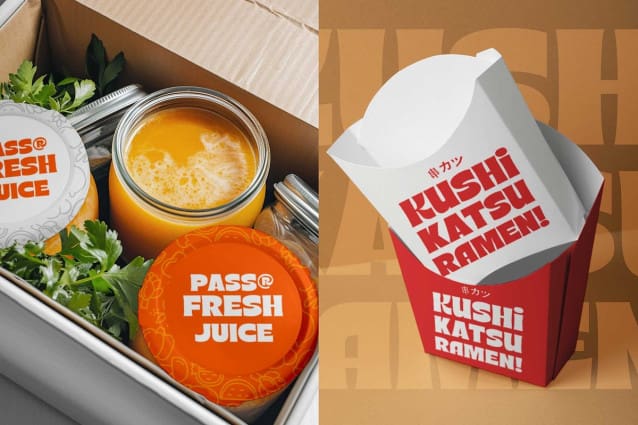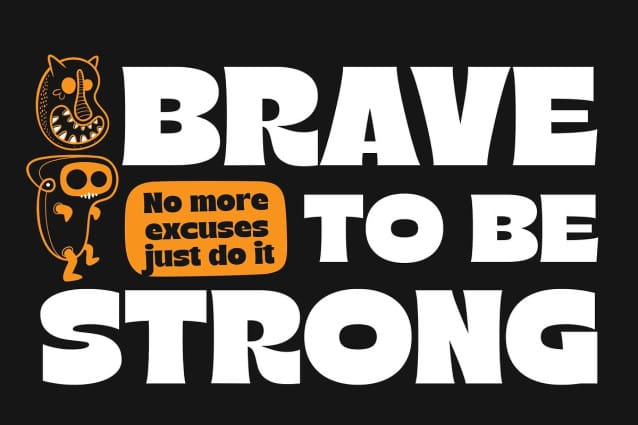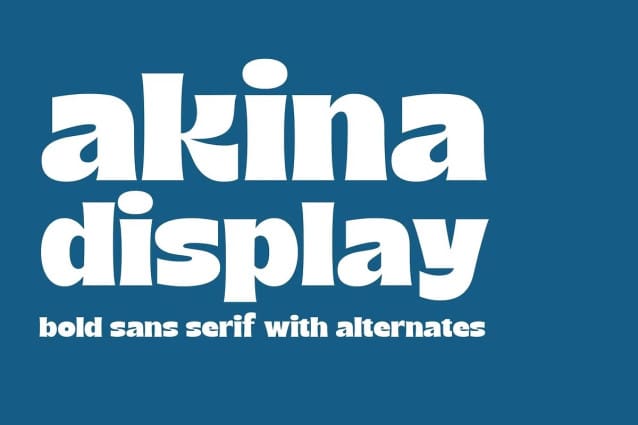
Akina Display Font
Akina Display Font, a bold serif font inspired by the charm of vintage-pop art. Its thick, playful curves and subtle beak endings create a relaxed yet fun vibe, bringing energy and warmth to your designs.
Perfect for projects that thrive on contrast, Akina shines in logos, headlines, branding, motion graphics, packaging, and more. With stylistic alternates and multilingual support, Akina offers endless creative possibilities, helping you craft designs that truly stand out.